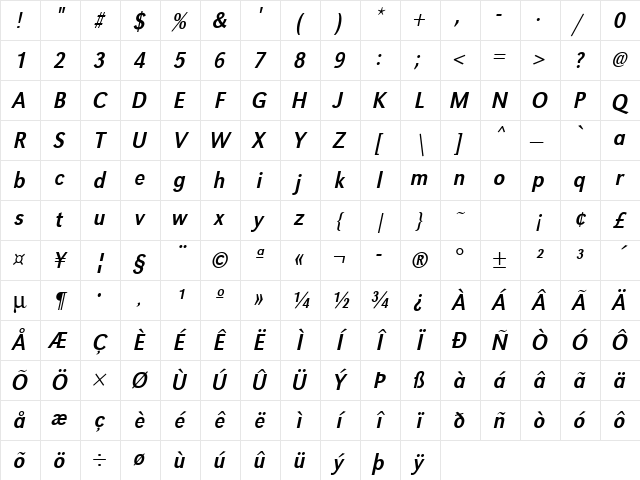
URWGroteskTExtNar takes a clean, functional approach - its unadorned letterforms prioritise legibility and work reliably across screen and print environments. The slanted form adds forward momentum and visual energy.
Font Pairing: Works well alongside a characterful serif or display font that can carry the expressive load while URWGroteskTExtNar handles the functional copy.
Pro Tip: Use URWGroteskTExtNar for UI labels, navigation, and short-form body copy where clean legibility is the priority.